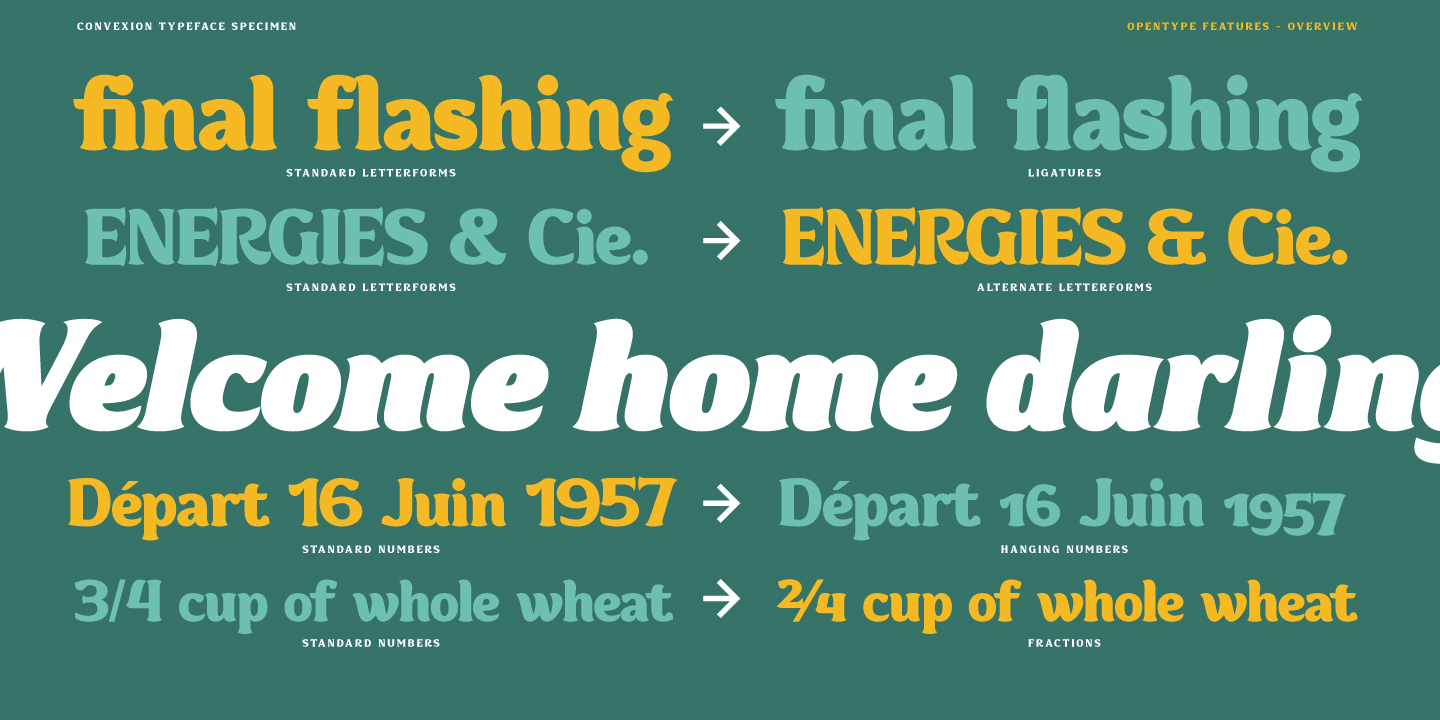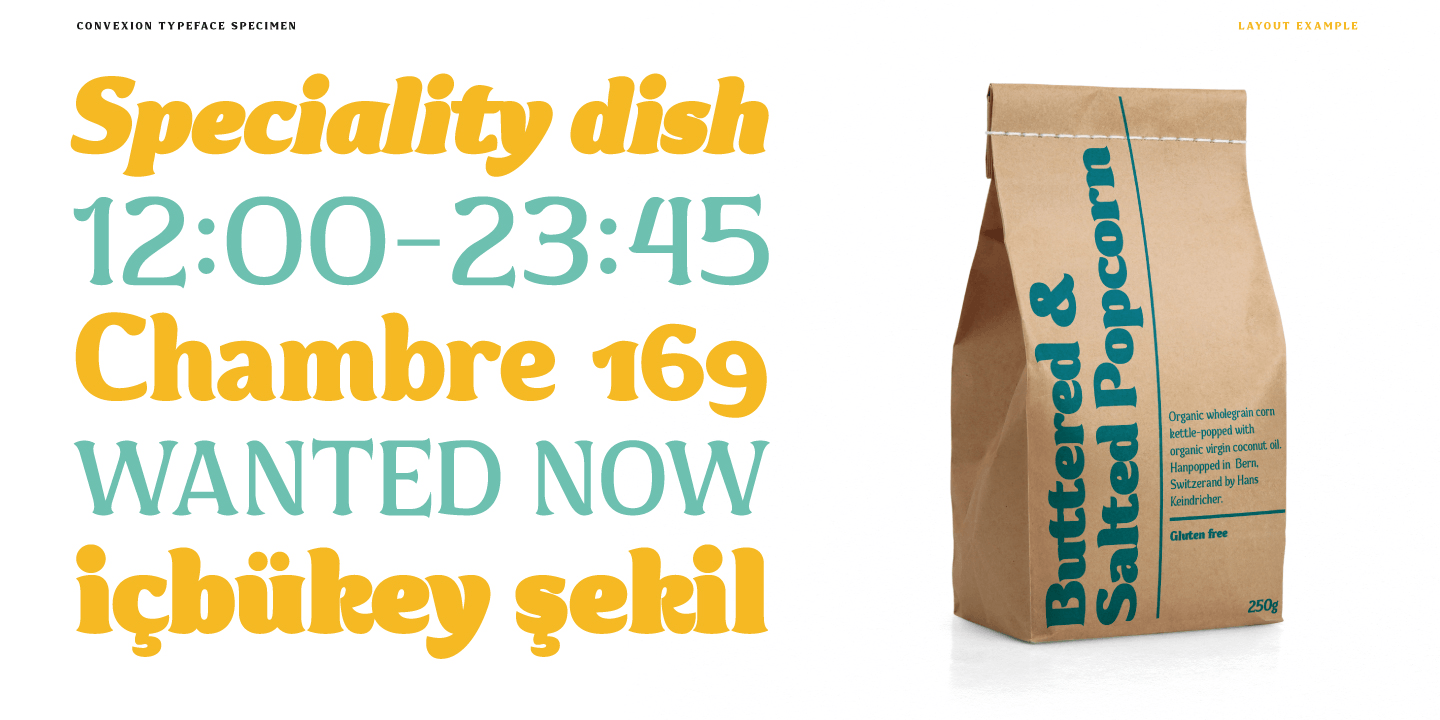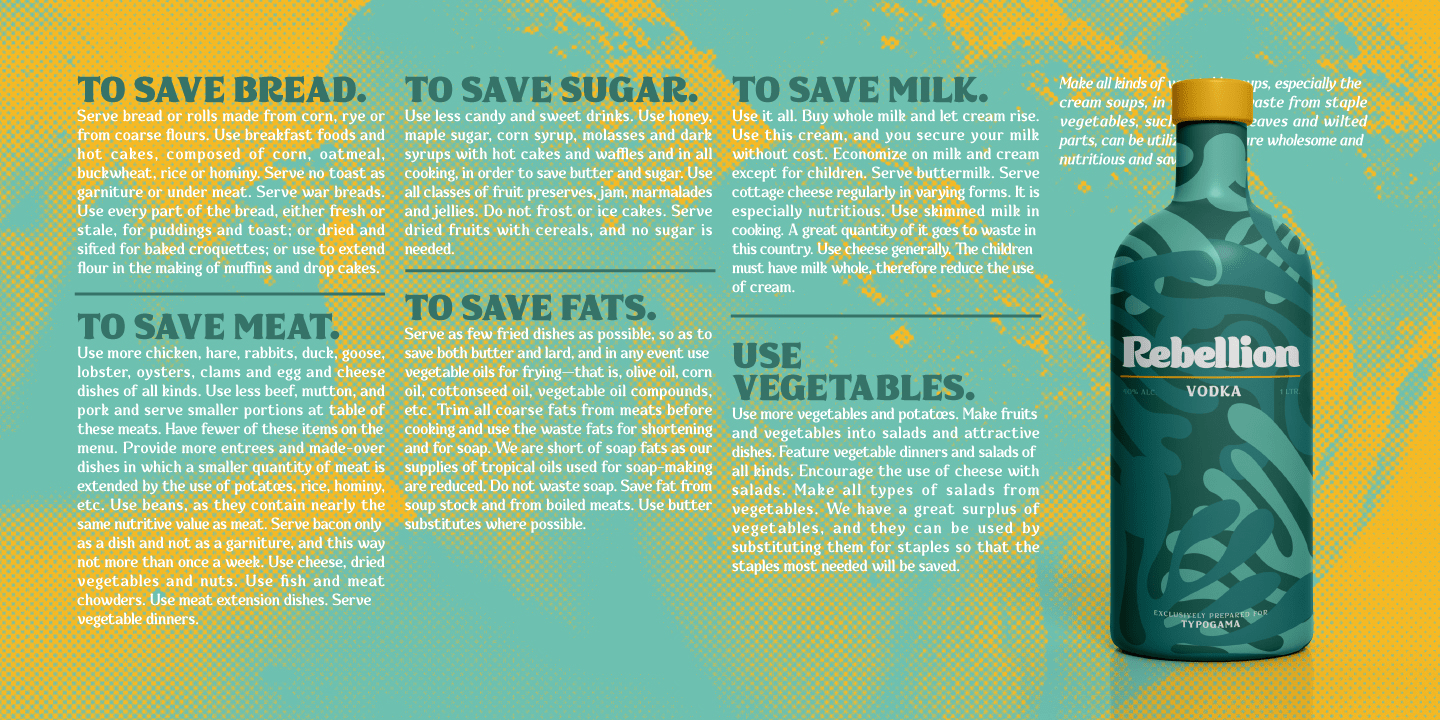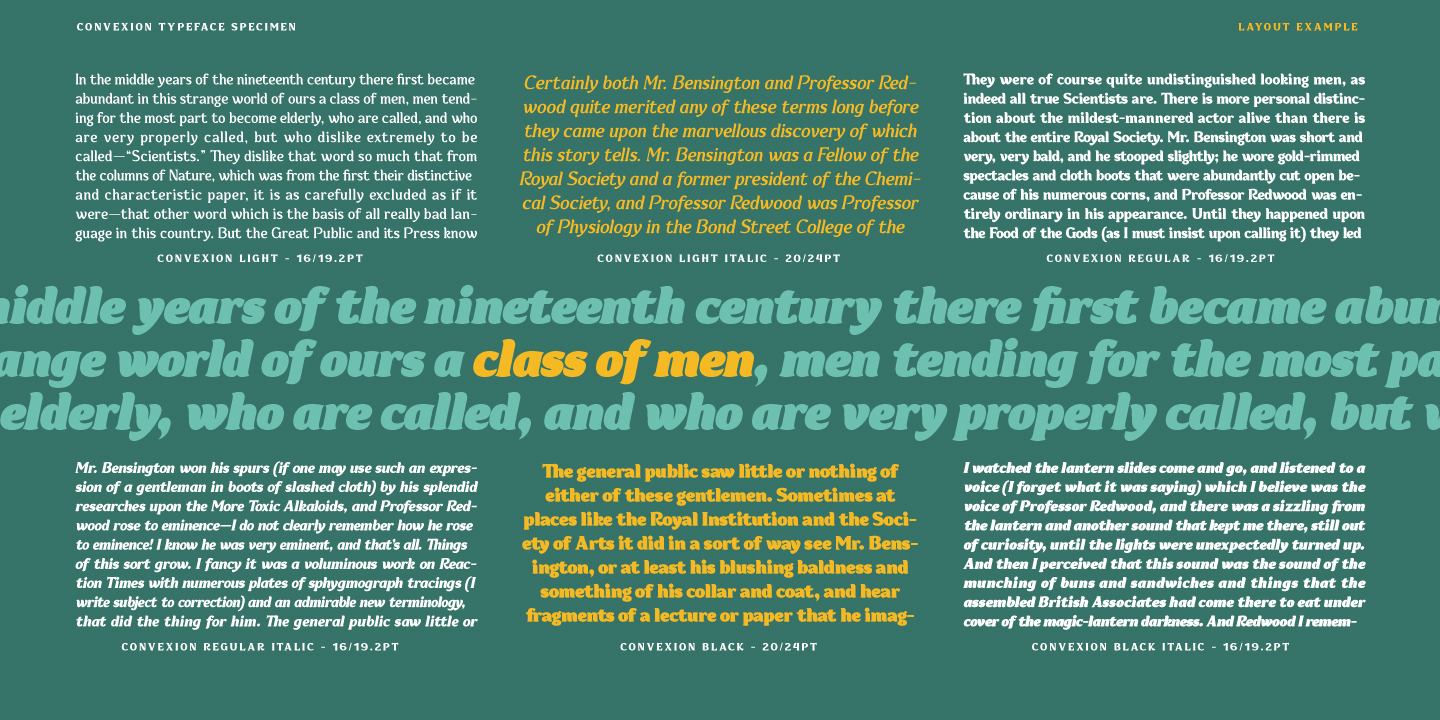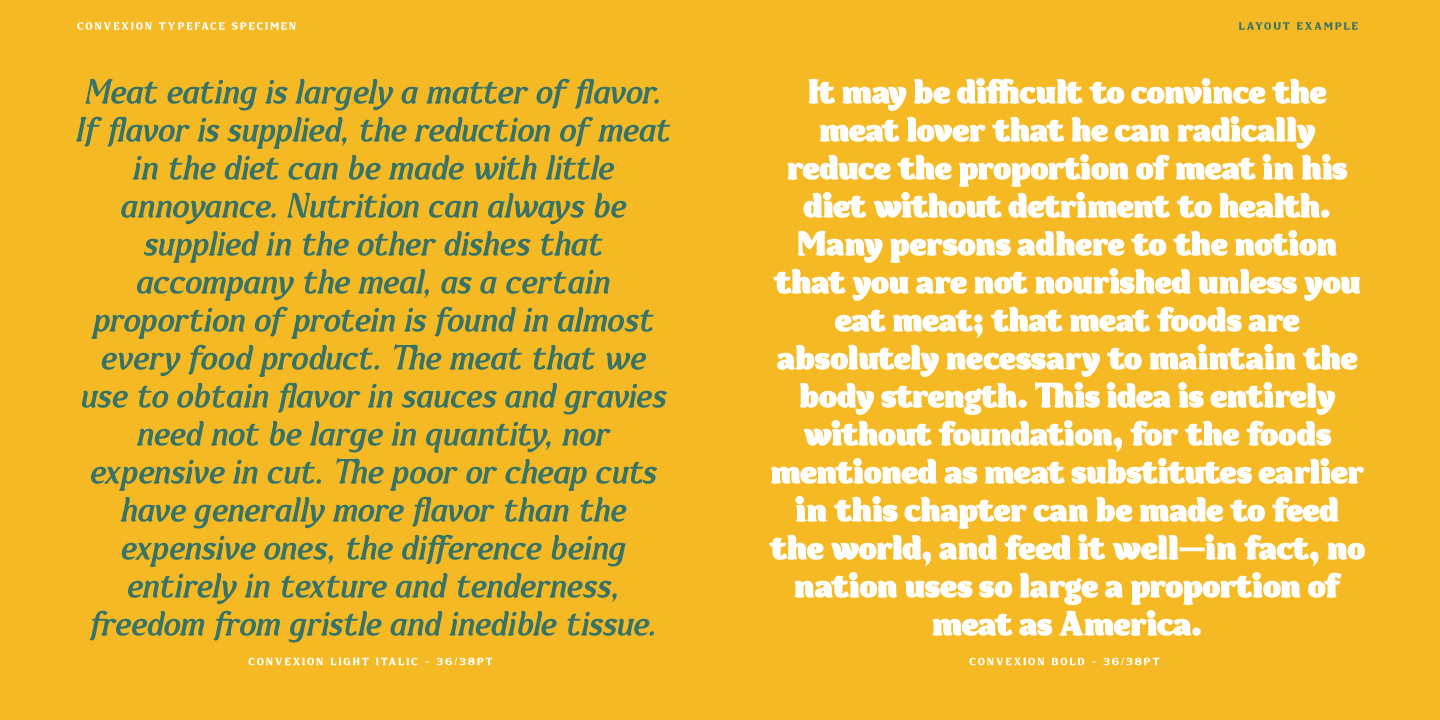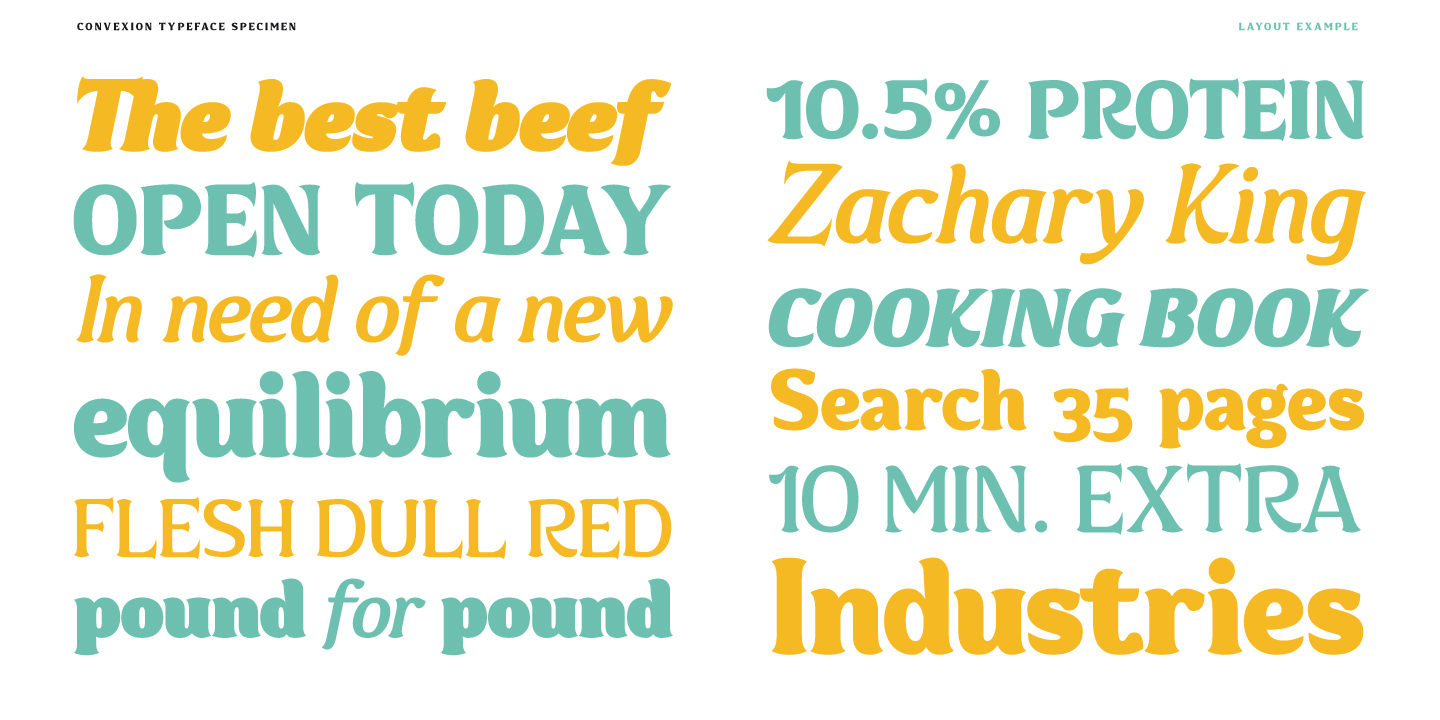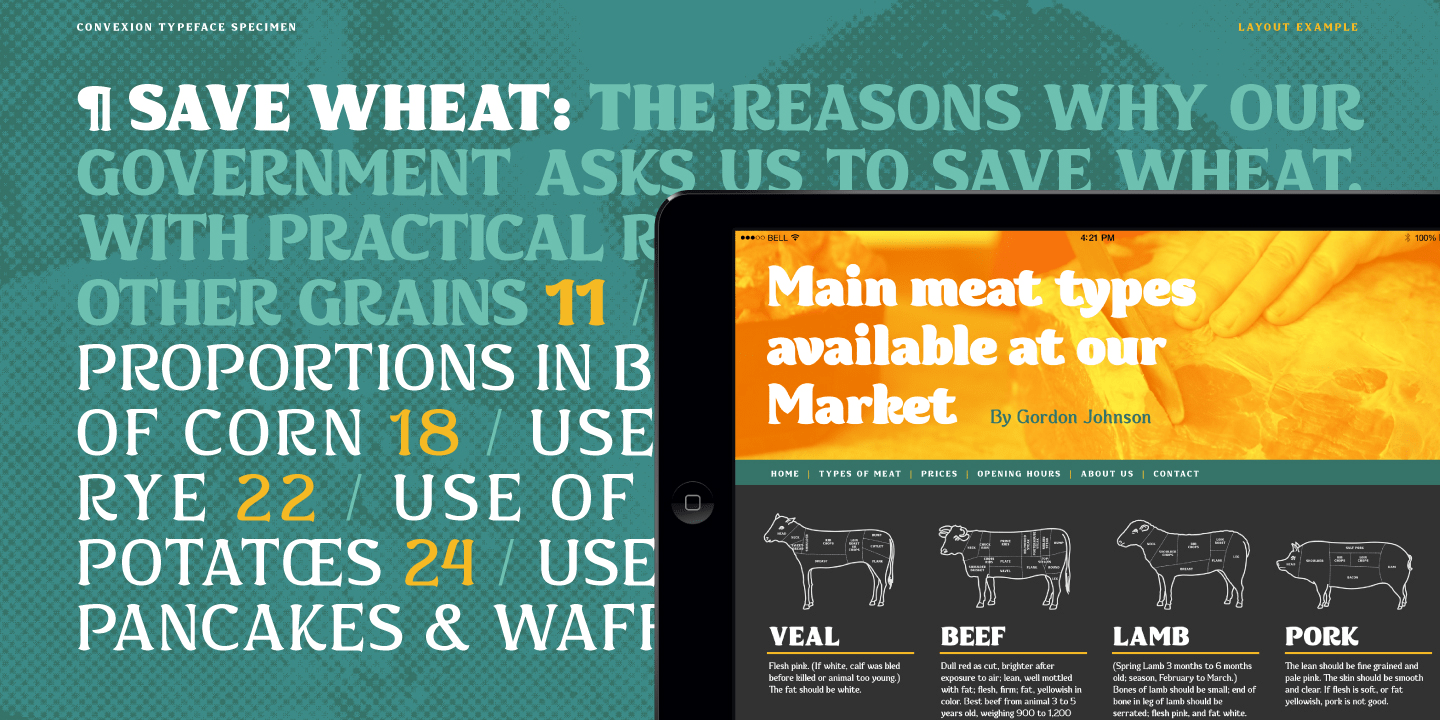
Convexion
About Convexion
Designed as a versatile and functional family, Convexion is the result of a personal exploration into the use of convex forms in serif designs. It\’s humanist form is inspired by a fusion of classical serif forms with the more expressive forms found in…